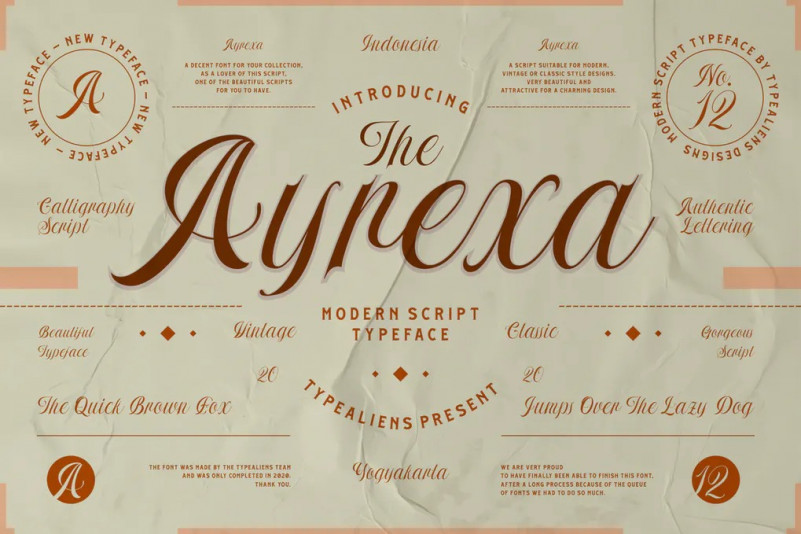
Ayrexa Font
AYREXA is a beautiful script, made from hand scrapes and then processed into a font that is quite unique compared to scripts in general. Ayrexa is perfect for making beautiful writing, for example for the purpose of a wedding invitation, a name on a business card, or for your posts on social media.